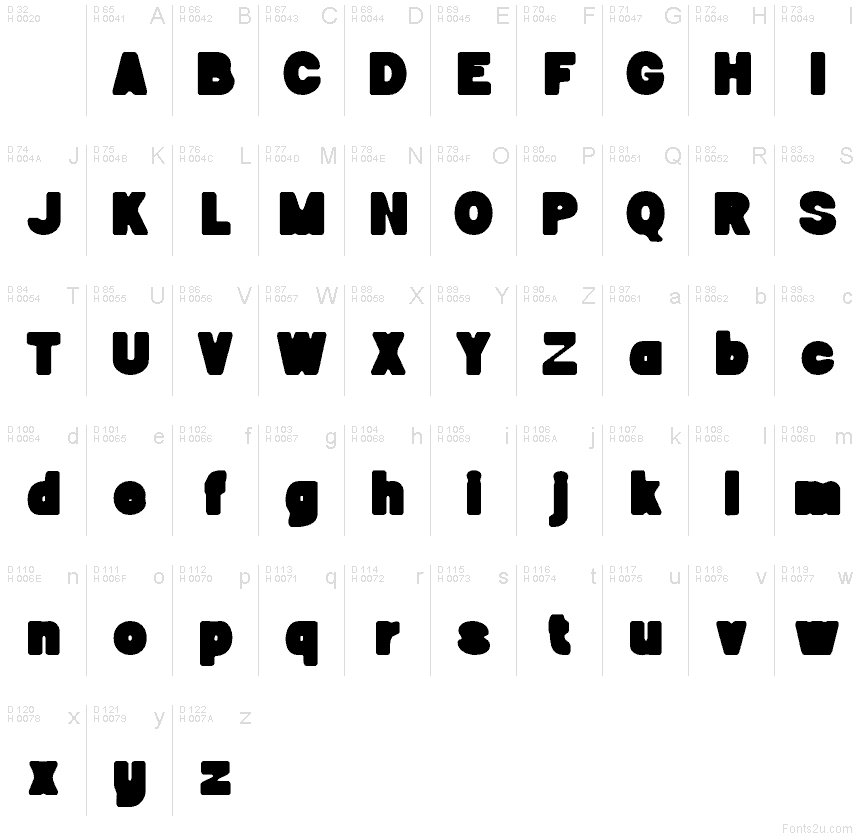
CS Shelton Drawn font by Craft Supply Co. is a free bold hand-drawn display font. Built within the CS Shelton family, it leans into pill-shaped silhouettes, puffy counters, and softly dented edges that feel inked, not engineered. The rhythm is chunky yet calm, with tight spacing that lets big words read as friendly, high-impact blocks of color.
Using CS Shelton Drawn, headlines pop with a bubbly, approachable voice—great for snack packaging, kids’ book covers, festival posters, stickers, café menus, and playful social graphics. This free font thrives oversized, where its inky curves stay crisp. Pair it with a clean, narrow sans from the CS Shelton family to keep captions tidy and let the big, blobby forms take center stage.